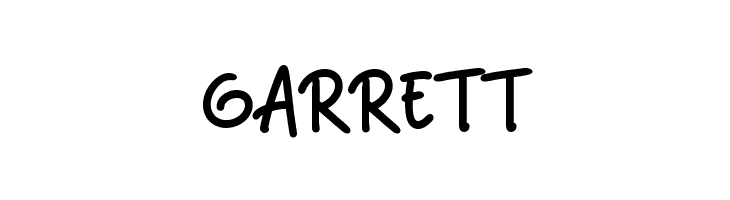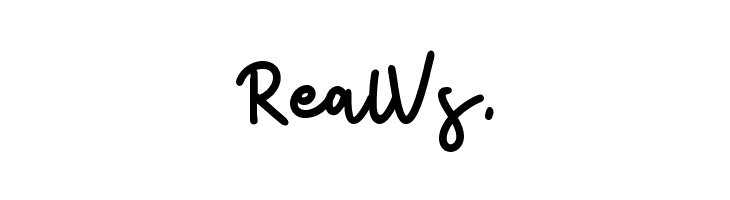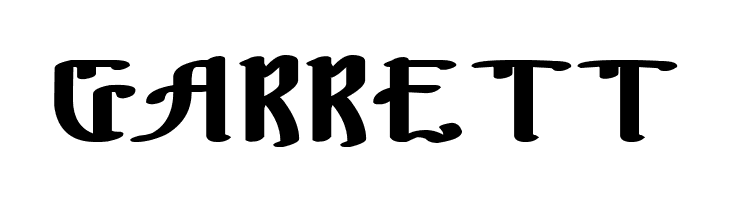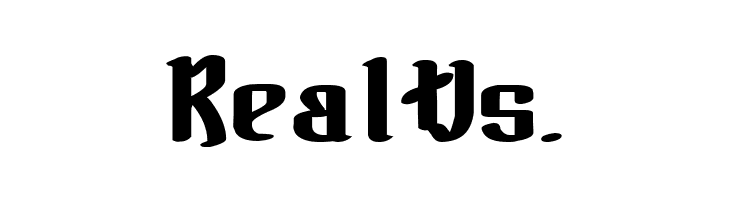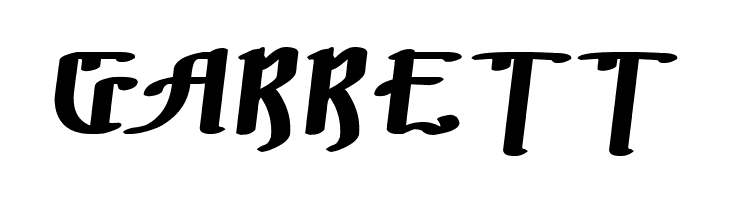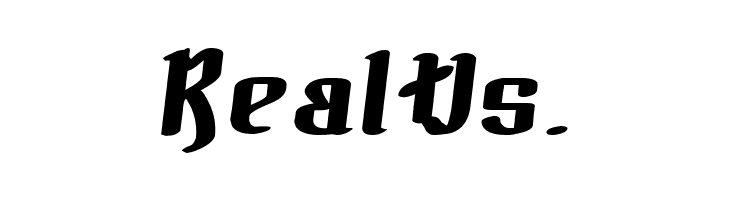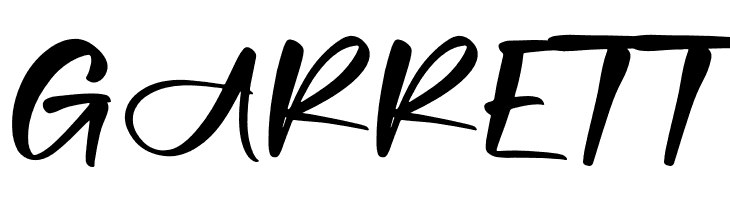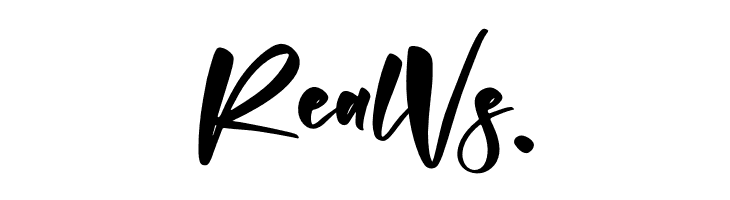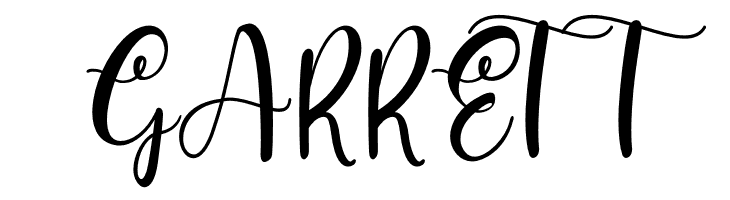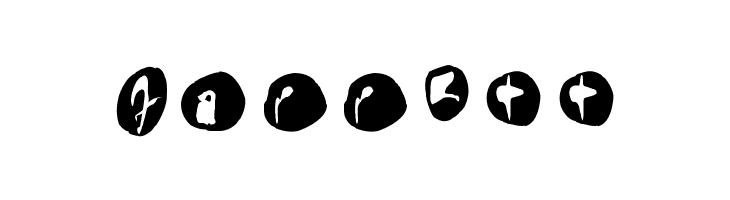
A bold, distressed font with a rugged, hand-crafted appearance.
A bold, geometric font with angular shapes and a futuristic style.
A bold, geometric font with angular shapes and enclosed characters.
A bold blackletter font with dramatic, angular strokes and intricate details.
A bold, italicized blackletter-inspired font with sharp, angular lines.
An abstract, hand-drawn font with irregular, brush-like letterforms enclosed in circular shapes.
A bold, tech-inspired font with characters inside smartphone frames.
A bold, sans-serif font with characters enclosed in smartphone-like frames.
A playful handwritten font with heart embellishments and rounded edges.
A flowing, cursive script font with elegant loops and swashes.
A bold, angular font with high contrast and geometric shapes, perfect for impactful designs.
A playful, blocky font with enclosed characters for a decorative look.
A bold, expressive script font with flowing, cursive letterforms.
Whimsical cupcake-themed decorative font with hand-drawn charm.
A playful, hand-drawn 3D font with a bold, textured style.
A playful, bone-themed font with pirate symbols, perfect for adventurous designs.
A bold, stencil-like font with geometric influences and strong visual impact.
A bold, modern font with a stencil-like, industrial design.
A playful, bold handwritten font with dynamic strokes and a casual style.
A collection of geometric shapes with a striped, slatted design.
A scratchy, hand-drawn font with a textured, artistic style.
A bold, distressed font with boxed characters and a vintage feel.
A bold, distressed font with a vintage, grunge aesthetic.
Bold, boxed font with a distressed, vintage style.
Bold, distressed font with a boxed, cut-out style.
A playful, handwritten font with tall, narrow letters and consistent stroke width.
A bold, textured font with a woven pattern, ideal for dynamic and modern designs.
A bold, expressive handwritten font with dynamic cursive letterforms.
A bold, handwritten font with a playful and informal style.
A playful and whimsical font with heart motifs and rounded characters.
A whimsical, hand-drawn font with decorative curls and playful style.